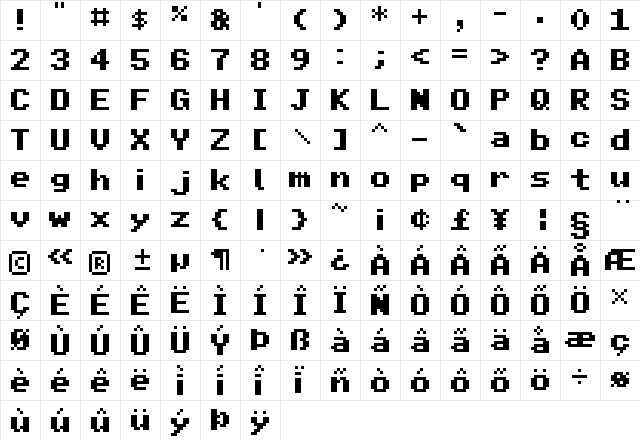
Pixel Sans Serif Condensed Regular
Design Context for Pixel Sans Serif Condensed Typeface
Pixel Sans Serif Condensed celebrates the constraints of early digital type, turning pixel geometry into a distinctive and immediately recognisable style.
Well-suited to indie game interfaces, retro computing aesthetics, and pixel art-adjacent design work.
Pro Tip: Use Pixel Sans Serif Condensed at sizes that align with its pixel grid for the sharpest rendering — scaling to non-integer multiples can introduce unwanted blur.